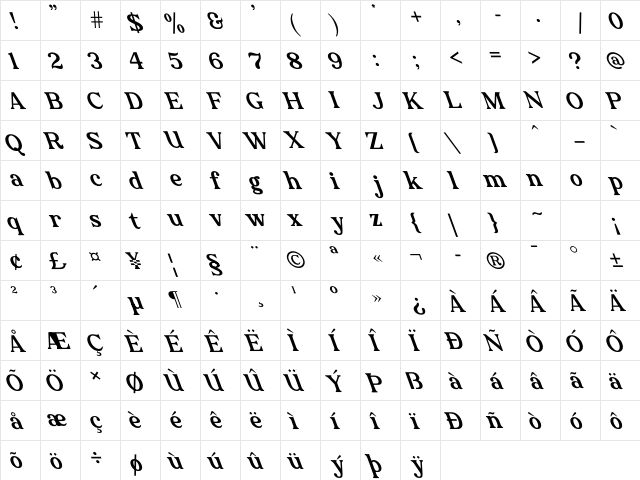
Lokey Oblique Regular
Design Context for Lokey Oblique Typeface
Lokey Oblique is a composed and adaptable typeface that performs quietly and consistently across a wide range of design contexts. The dynamic lean of this cut emphasises speed and emphasis in any layout.
Pro Tip: Try Lokey Oblique for annotation and caption copy alongside an upright companion — the contrast in angle creates a dynamic but ordered typographic system.